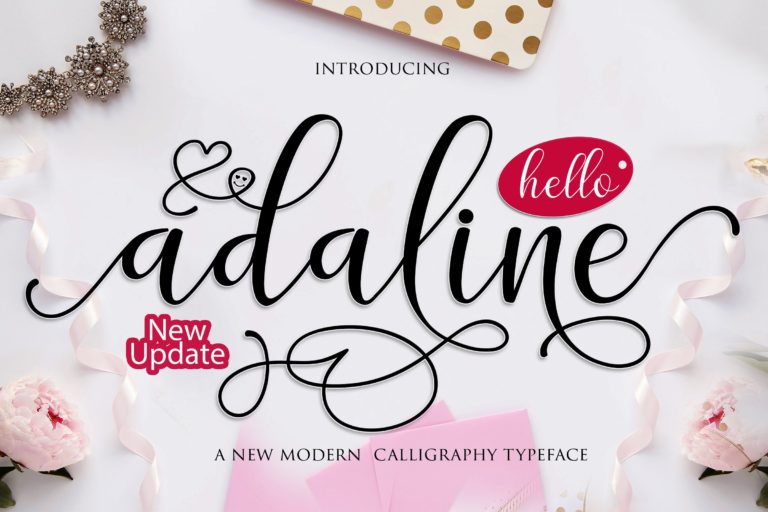
Adaline Script Font
A new modern calligraphy typeface. A perfect product for all your work. Introducing Adaline , font created by MrLetters. Adaline a new fresh & modern script with a handmade calligraphy style, decorative characters and a dancing baseline! So beautiful on invitation like greeting cards, branding materials, business cards, quotes, posters, lettering and more !!